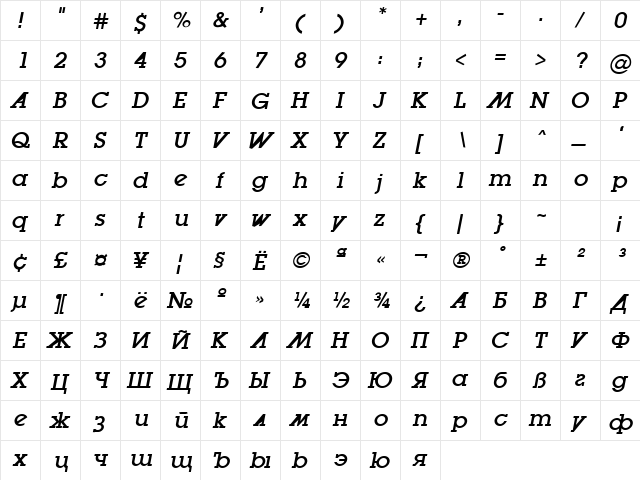
LugaAd Oblique
Design Context for LugaAd Typeface
LugaAd offers clean, dependable letterforms without strong stylistic allegiance, making it a practical choice for designers who need flexibility. The slanted form adds forward momentum and visual energy.
Pro Tip: Try LugaAd for annotation and caption copy alongside an upright companion — the contrast in angle creates a dynamic but ordered typographic system.